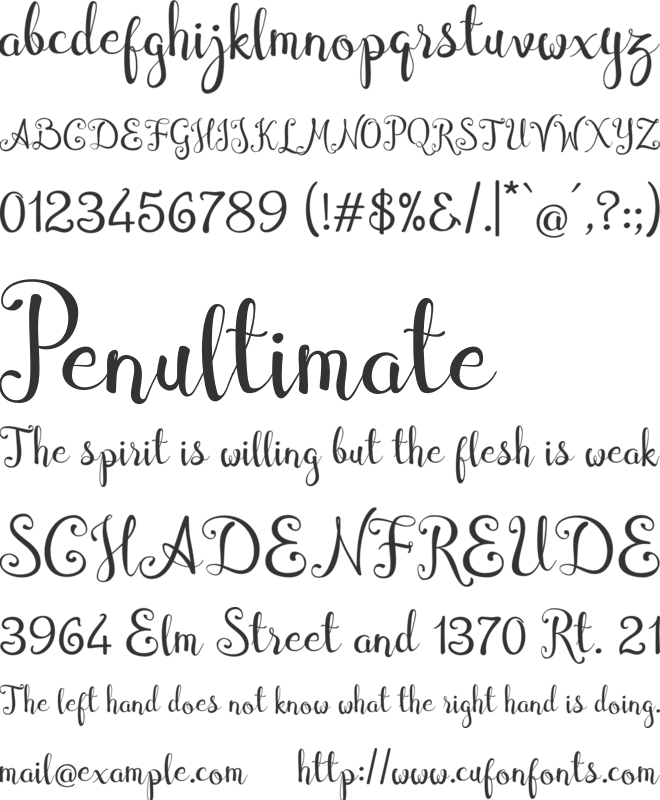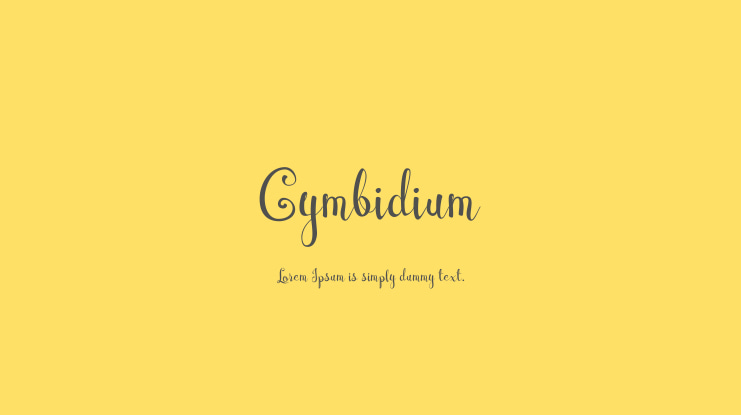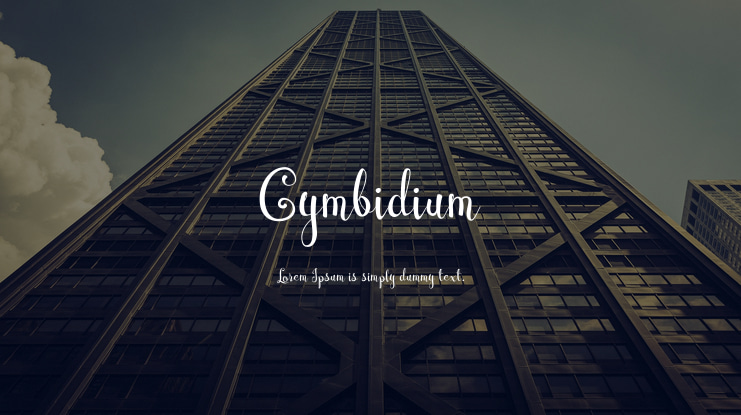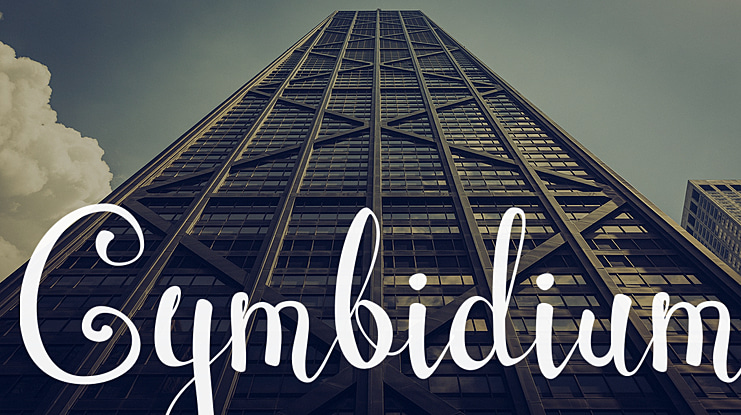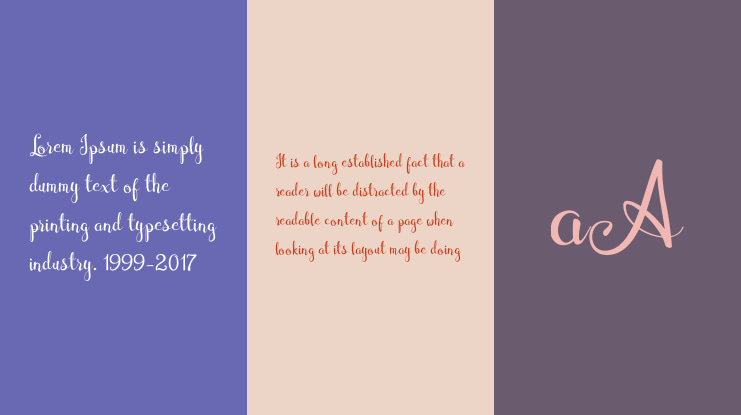
Cymbidium Font
Introducing cute and playful script, with natural and dynamically handmade touch. This font use two alternate each lowercase letter to avoid same letter in a pair, and sure there is hundreds swashy character to make your text so pretty like orchid flower!
- All alternate characters appear to Alternate for Current Selection on Glyphs Panel - This font contain 951 glyph and supported to basic latin character and eastern europe language. - To avoid of difficulty of use alternate character, I feature it with so many shortcut to make access alternate character be so fast and easy! (Activate Contextual Alternates feature)   If that still not enough easy, I create code to automatically stylish your text (activate Stylistic Alternates button). - Shortcuts for portable swash with ">>" and "<<" key (activate Contextual Alternates) - This font also featured with PUA encode, so it can be accessed with software who not supported to Opentype. (Use character Map for Windows OS, use Font Book for Mac OS). For complete information and purchase a commercial license, please visit: https://creativemarket.com/darwino